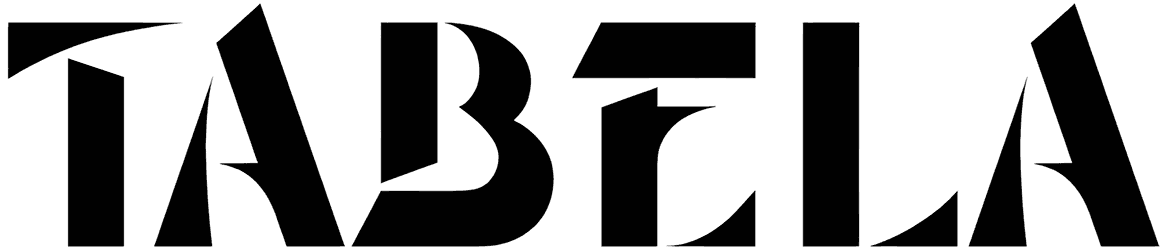
Tabela Font
Saying this lettering style can motivate your fans and spark their interest soon! It is unbelievable what it can do to your album covers, online banners, brand taglines, logos, etc, unless you try it out.